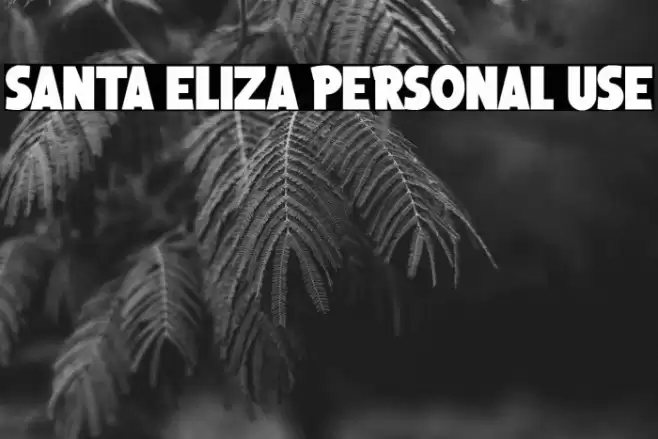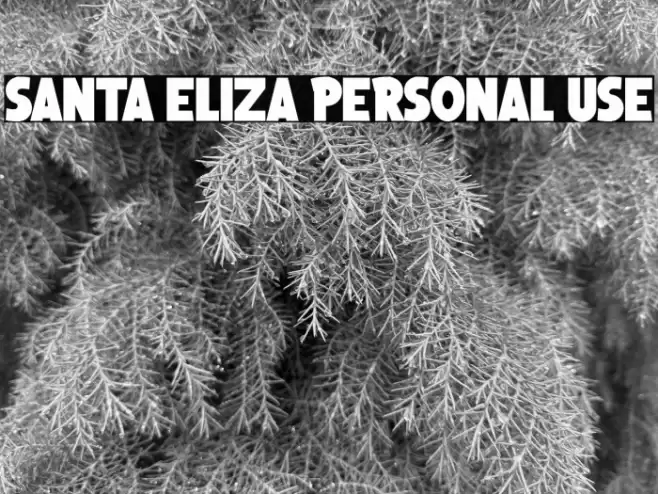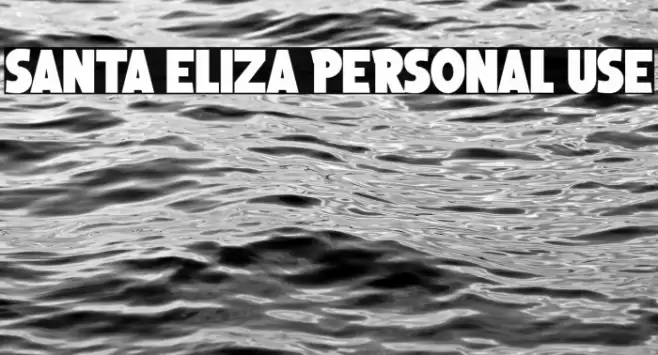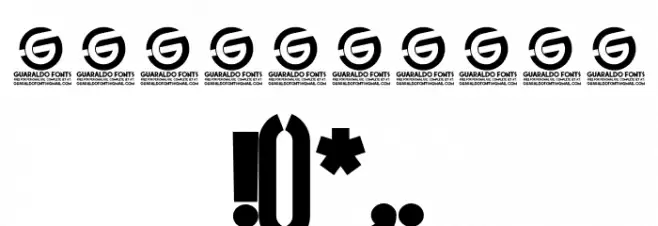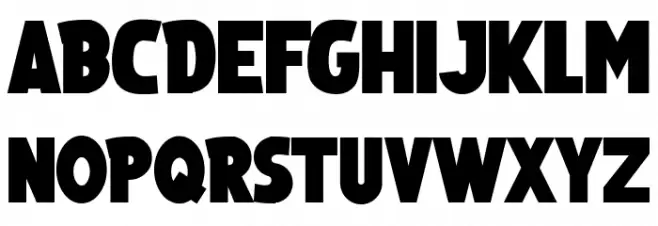
Santa Eliza Personal Use Font
Santa Eliza Personal Use Description
This font features bold, geometric letterforms with a strong presence. The characters are crafted with thick strokes and sharp angles, giving it a striking and impactful appearance. The uppercase letters are uniform in height, while the lowercase letters maintain a consistent style, enhancing readability. The numbers and special characters are designed to match the boldness of the alphabet, ensuring a cohesive look across all elements. This font is ideal for making a statement, with its high contrast and solid structure.
A bold, geometric font with thick strokes and sharp angles from Uncategorized fonts.
- Proposed Projects: Ideal for posters, headlines, branding, and any project requiring a bold, impactful typeface.
- Contrast: High